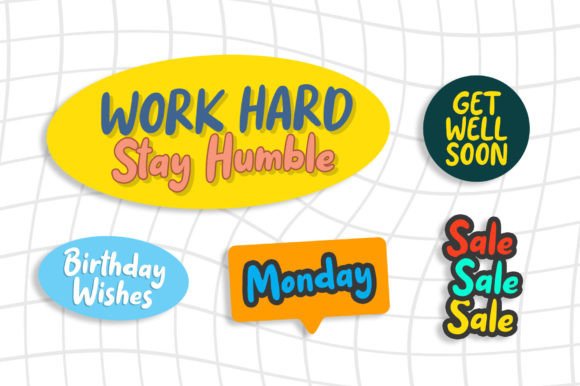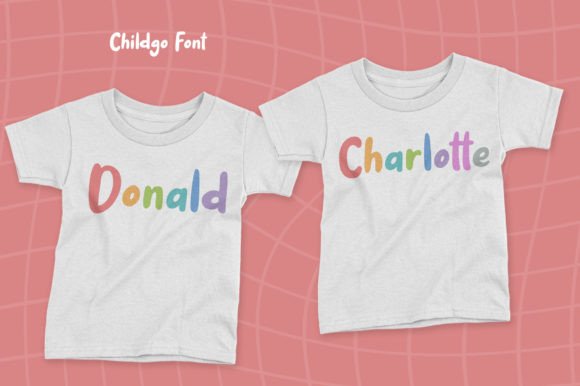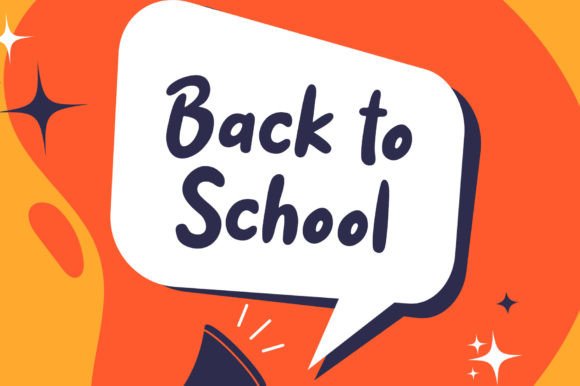
Introduction to Childgo Font
Do you remember the thrill of discovering a new design resource that perfectly captures the essence of your creative project? For designers, this moment is a game-changer. It’s the spark that ignites a new idea, the fuel that drives a project forward, and the confidence that comes with knowing you’ve found the perfect tool for the job. For many, that tool is the Childgo Font – a vibrant and eye-catching typeface that demands attention and creates a sense of fun and energy.
With its well-crafted letters, mix of thick and thin lines, and transparent background, the Childgo Font is the perfect addition to any design arsenal. Whether you’re working on a high-quality poster, a creative project, or simply need a font that stands out from the crowd, the Childgo Font is an invaluable resource that’s sure to elevate your work.
Key Features of Childgo Font
- Unique Hand-Drawn Design: The Childgo Font features a distinctive hand-drawn design, perfect for creative projects that require a personal touch.
Honest Review: Childgo Font
As a designer, I’m always on the lookout for unique and high-quality design resources to enhance my creative projects. The Childgo Font is one such find that has caught my attention.
What works well: ✨ The Childgo Font is incredibly versatile, making it suitable for a wide range of creative projects, from kids’ educational materials to modern branding. Its playful and whimsical feel instantly adds a touch of fun to any design. Additionally, it’s a free download, which is a major bonus for designers on a budget.
What doesn’t work well: ⚠️ While the Childgo Font is great for most projects, it may not be the best choice for designs that require a transparent background. This is because the font’s design doesn’t lend itself well to see-through effects. Furthermore, it may not be suitable for high-end branding or corporate designs, as it may come across as too playful or immature.
Overall impression: I think the Childgo Font is a great addition to any designer’s toolkit, particularly for those working on kids’ educational materials or creative projects that require a playful touch. Just be aware of its limitations, and you’ll be able to use it to its full potential.
Pros:
- Playful and whimsical feel
Cons:
- May not work well with transparent backgrounds
- Not suitable for high-end branding or corporate designs
Tips for Getting the Most Out of Childgo Font
To get the most out of the Childgo Font, use it in conjunction with other design elements, such as images and graphics. Experiment with different font sizes, colors, and styles to create a unique and visually appealing design. Additionally, consider using the Childgo Font on a transparent background to add depth and interest to your design.